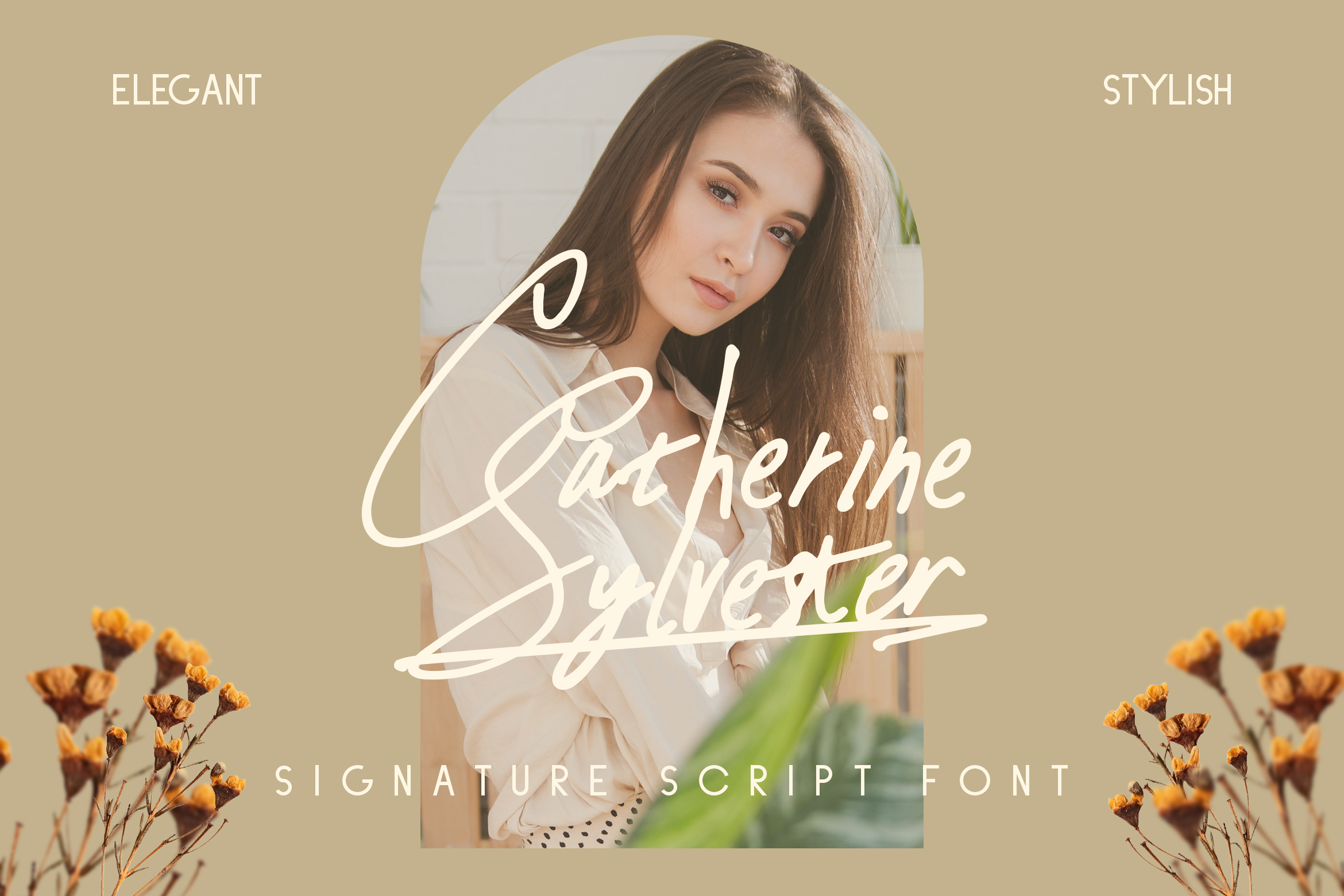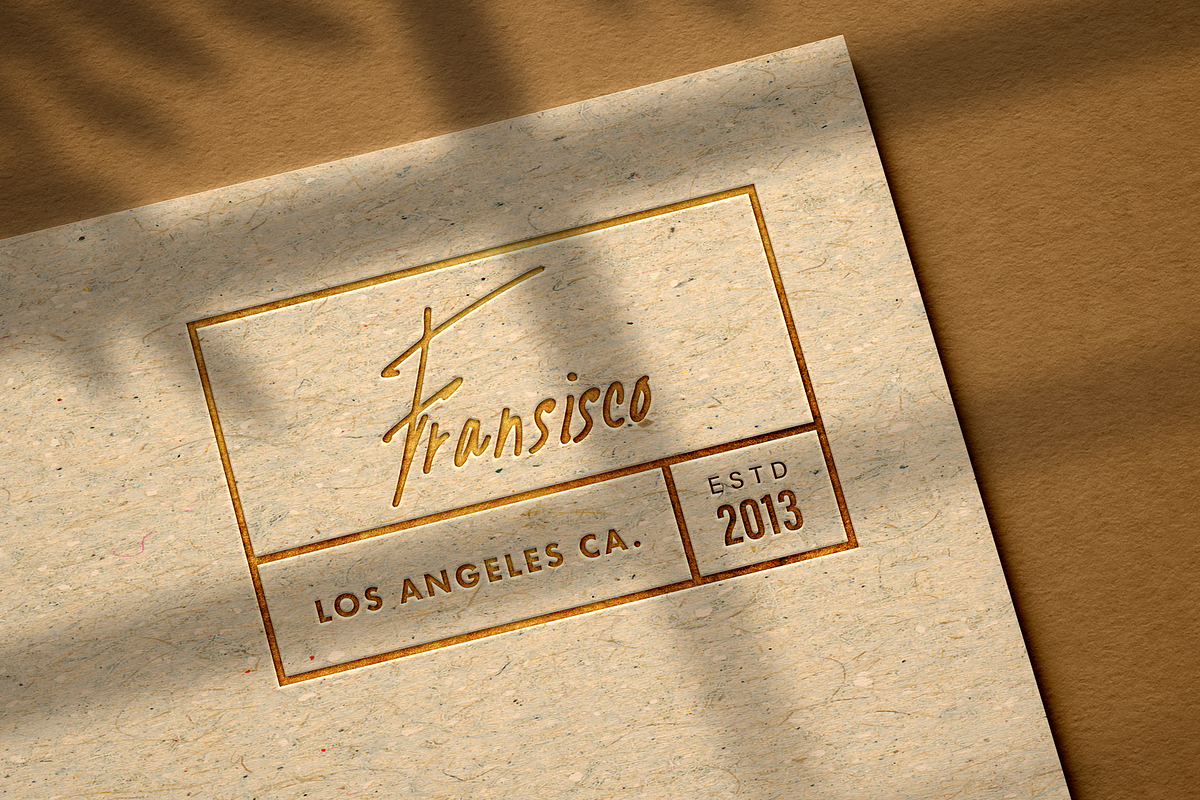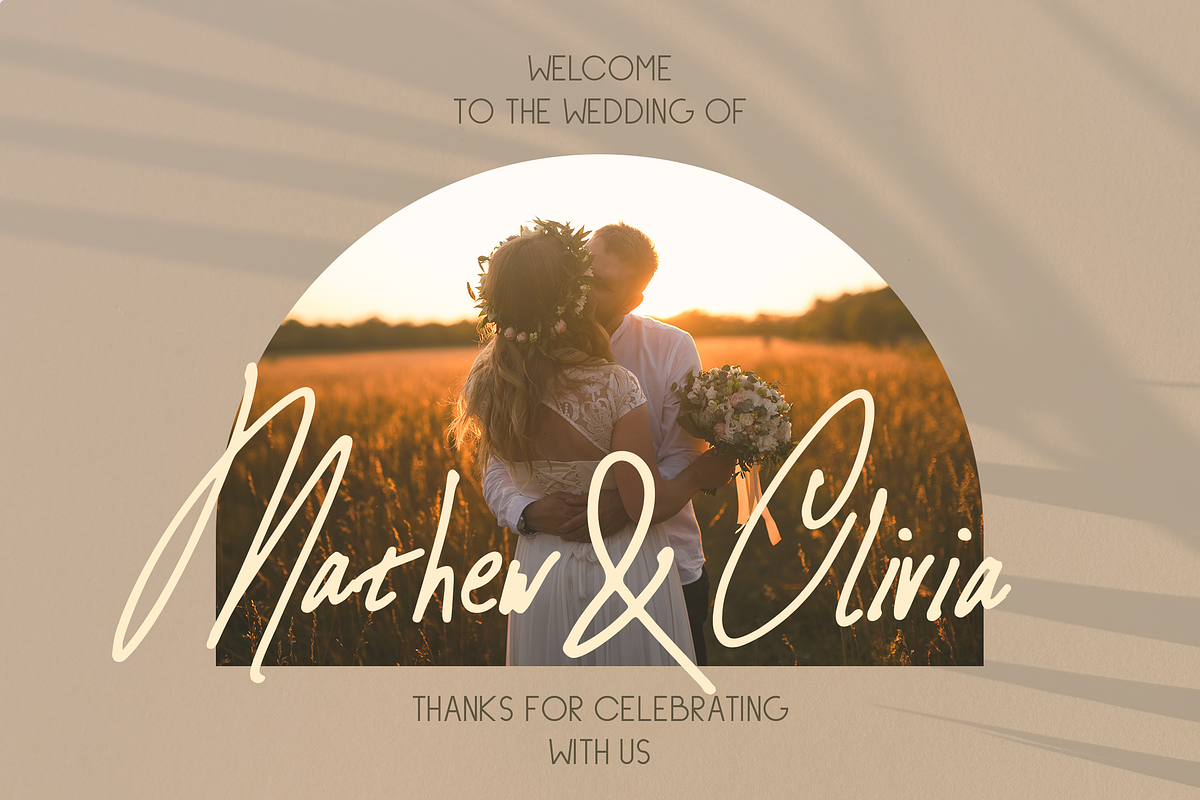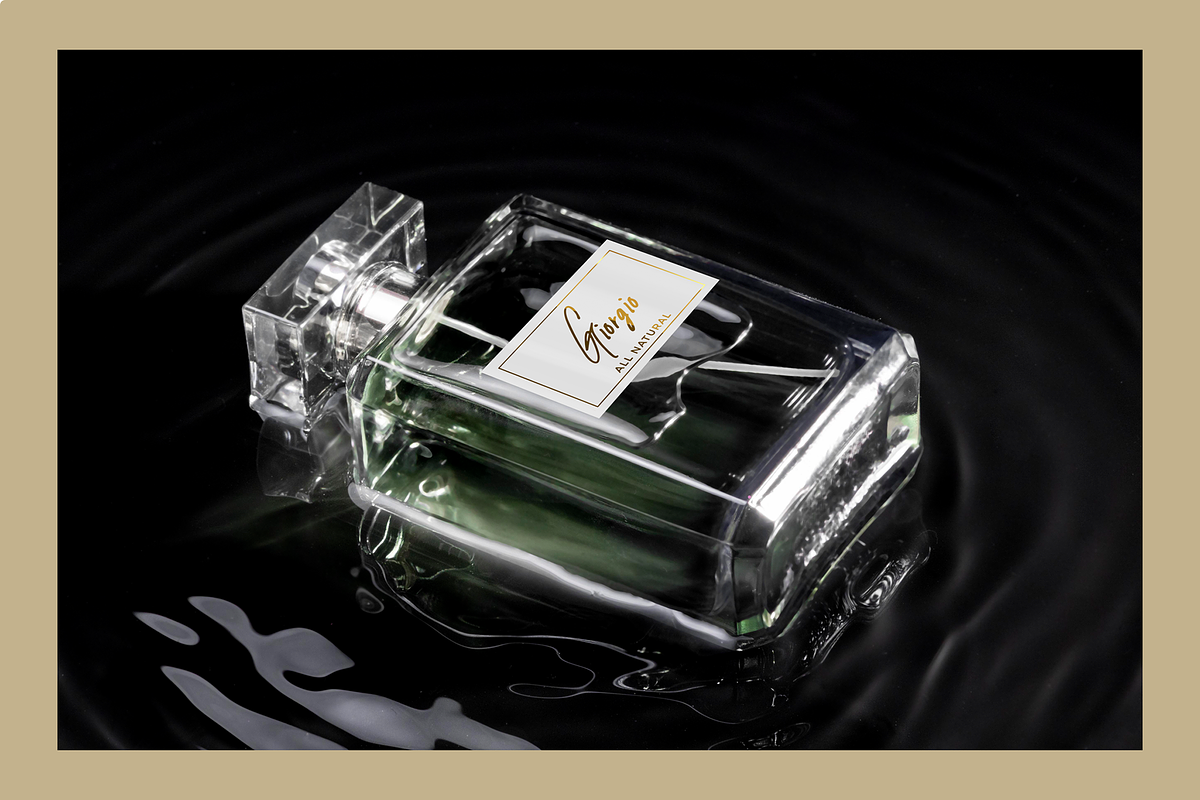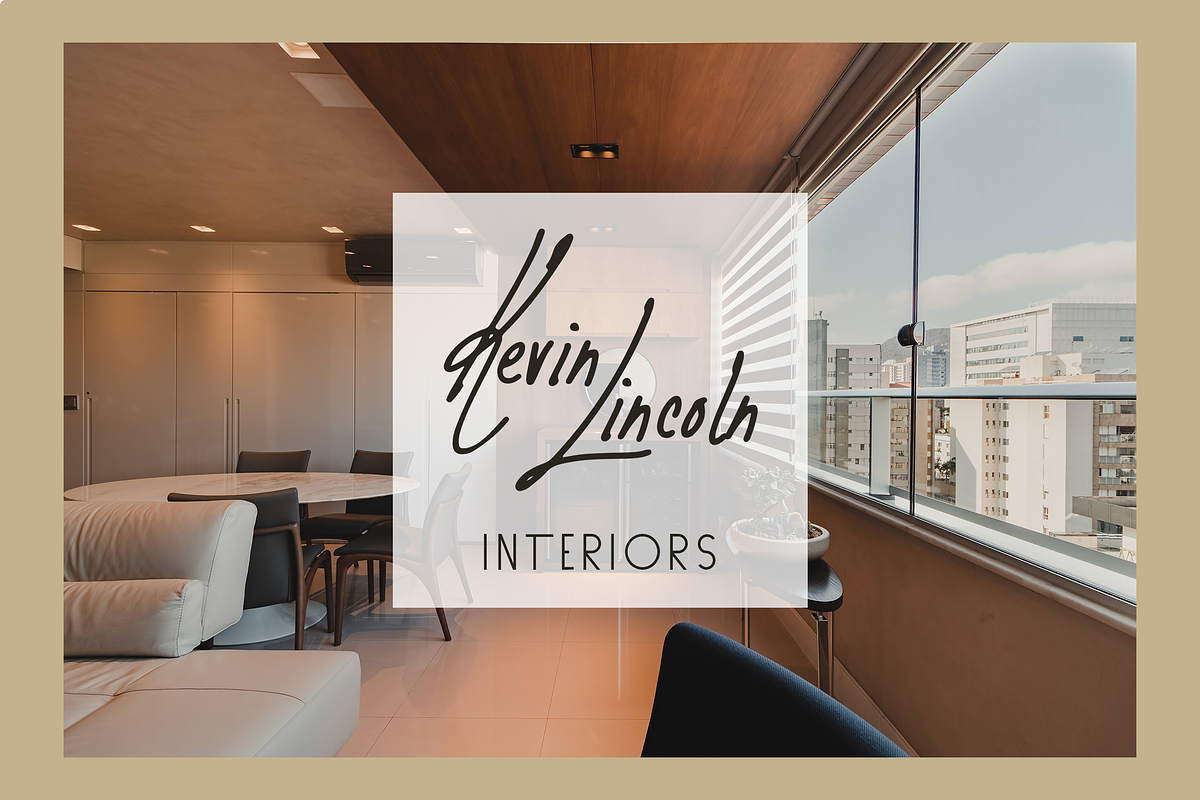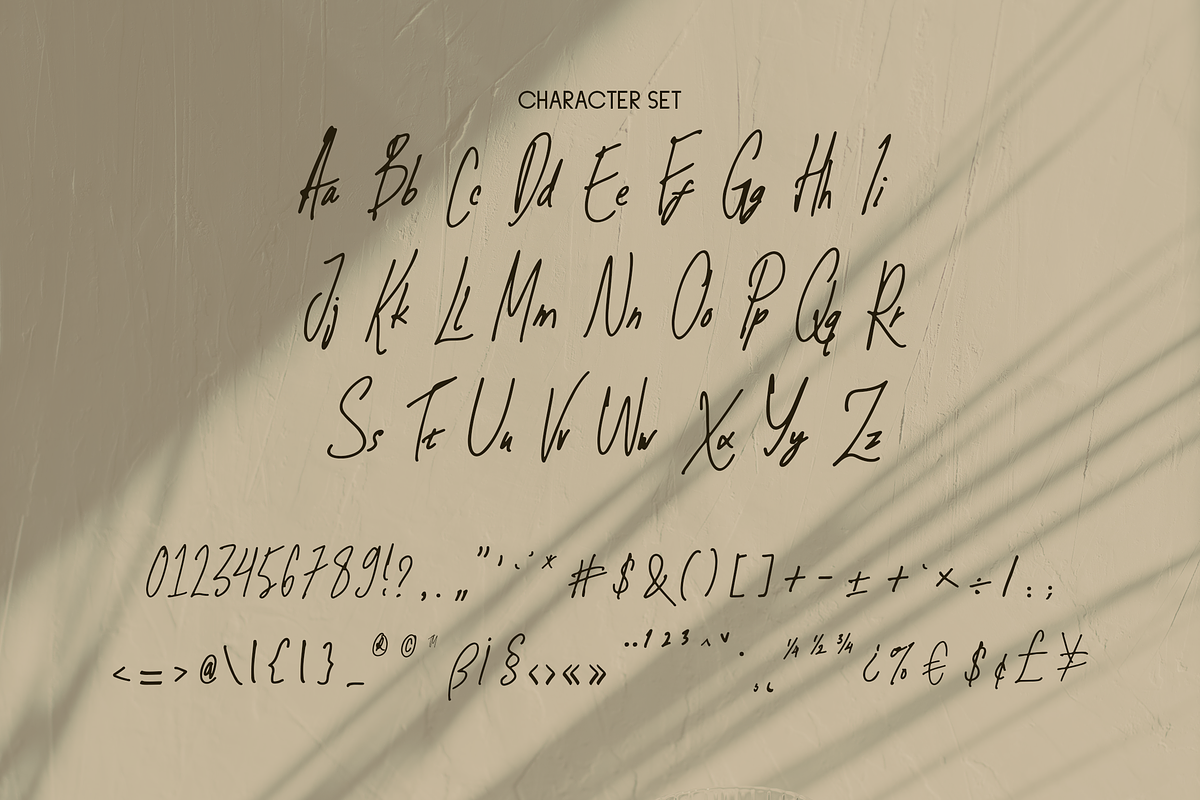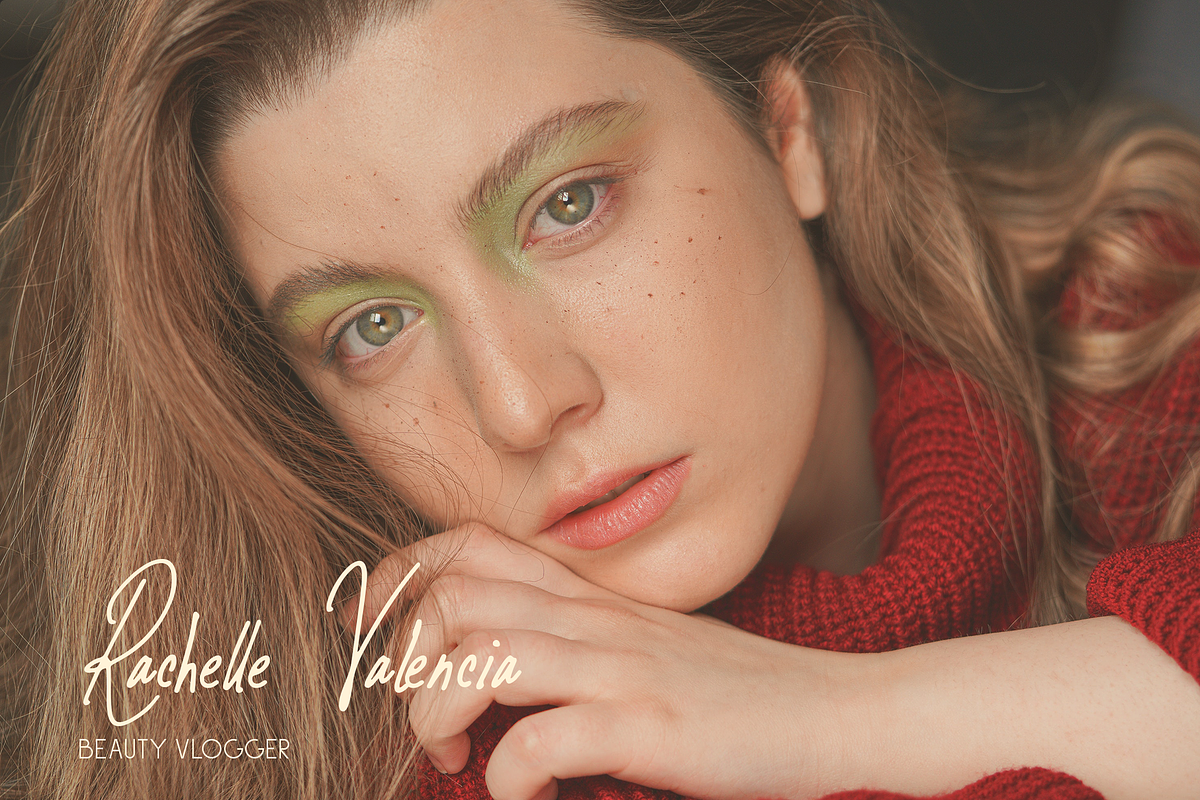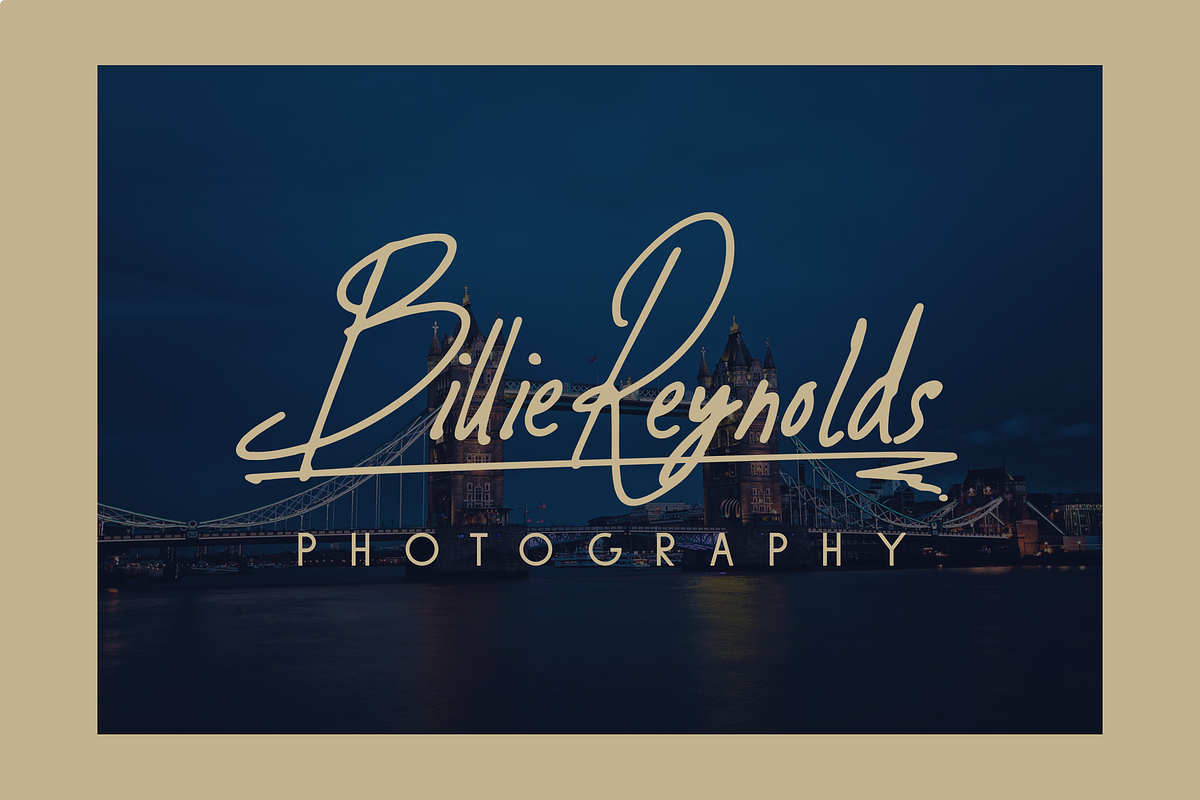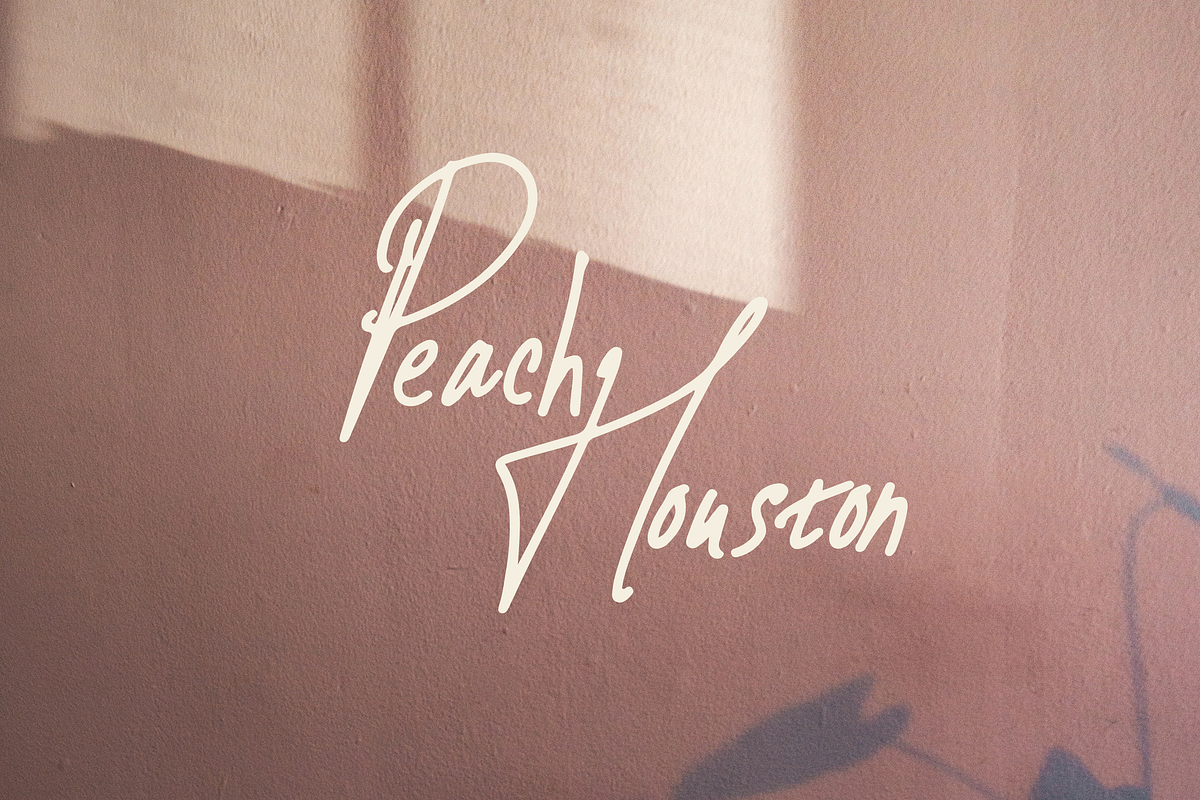
Catherine - Stylish Signature Font
Introducing Catherine, is a Stylish Signature Font has many purpose and suitable for signature, fashion, luxury, invitation, wedding event, modern, classic modern, logotype, advertising and much more
- Available Ligatures and Alternates